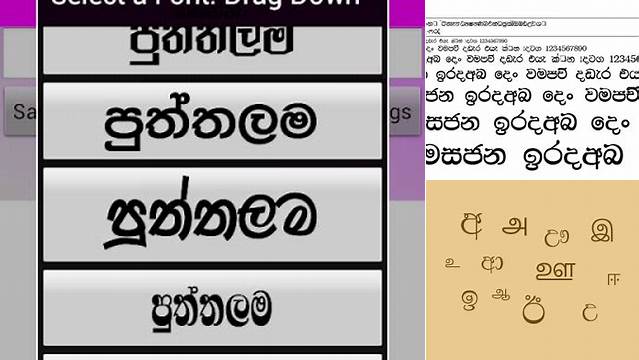
Sinhala Inet Font: Free Download & Guide
What is the Sinhala Inet Font?
So, what exactly is the Sinhala Inet font? Well, it's a Sinhala font, designed specifically for the Sinhala language, guys! This means it's packed with all the necessary characters and glyphs to perfectly represent Sinhala text. The font is widely used in Sri Lanka for various purposes, including everything from creating documents and designing websites to crafting stunning graphics and presentations. The font is known for its readability and aesthetic appeal, making it a popular choice for both personal and professional use. It's created by a famous font designer. The Sinhala Inet font has become a staple for anyone working with the Sinhala language in the digital space. It's all about making your Sinhala text look clean, clear, and visually appealing. The font's design ensures that the unique characteristics of the Sinhala script are accurately represented, ensuring that the text is both easy to read and culturally appropriate. Whether you're creating a simple greeting card or a complex marketing campaign, the Sinhala Inet font is a versatile tool that can help you communicate effectively in Sinhala. It's a great choice because it has been around for a while, and most computers support it without any issues. It also has excellent legibility across various sizes. This makes it perfect for everything from headlines to body text. The use of a dedicated Sinhala font, like Inet, can significantly enhance the quality and professionalism of your Sinhala content. The Sinhala Inet font is a testament to the importance of having well-designed fonts for every language. It also ensures that the richness and beauty of the Sinhala language can be preserved and showcased in digital media. This is why so many people are searching for Sinhala Inet font free download options!
Tips for Using the Sinhala Inet Font
Okay, now that you've got the Sinhala Inet font free download and installed it, let's talk about making the most of it! First, think about the size. The size of your font can greatly impact readability. Experiment with different sizes to find the perfect balance between legibility and visual appeal. For body text, a size between 12 and 14 points is usually a good starting point. For headings, you can go bigger to make them stand out. Next up, kerning and leading. Kerning is the space between individual letters, and leading is the space between lines of text. Adjusting these settings can significantly improve the overall look of your text. Make sure that your Sinhala text is properly spaced and easy on the eyes. Many software applications allow you to adjust these settings. Consider the context. Think about where your text will be displayed. Will it be on a website, a printed document, or a presentation? The context will help you decide which font size, style, and spacing to use. You might need to adjust the font to ensure it looks its best in different contexts. Make sure the font is supported. Always make sure that the Sinhala Inet font is supported by the software you are using. Most modern word processors, design software, and web browsers support Sinhala fonts, but it's always a good idea to double-check. If you're using the font on a website, make sure you embed the font correctly to ensure it displays properly on all devices. Keep it clean. Avoid using too many different font styles in one document. Stick to a consistent font scheme to maintain a professional look. Use bold and italics sparingly to emphasize important words or phrases. Lastly, always proofread your Sinhala text carefully. Ensure that there are no typos or errors. Proper grammar and spelling are essential for effective communication. By keeping these tips in mind, you can create visually stunning Sinhala content using the Sinhala Inet font. With some practice, you'll be creating amazing content in no time, now that you have a Sinhala Inet font free download!